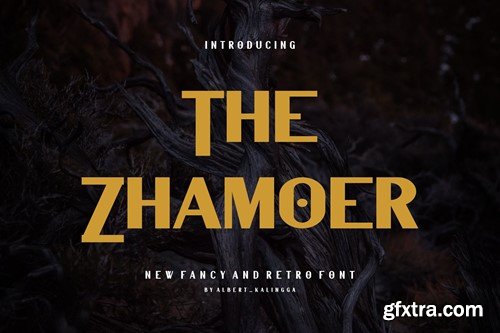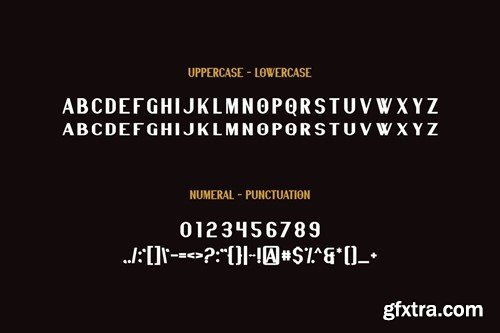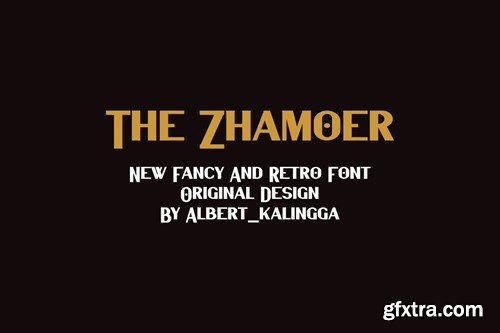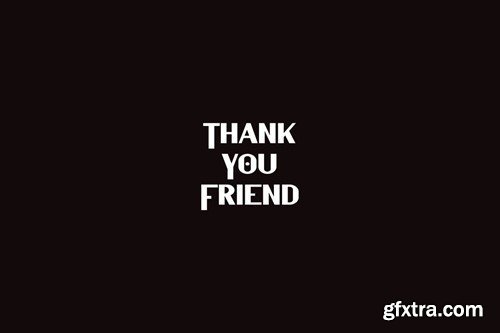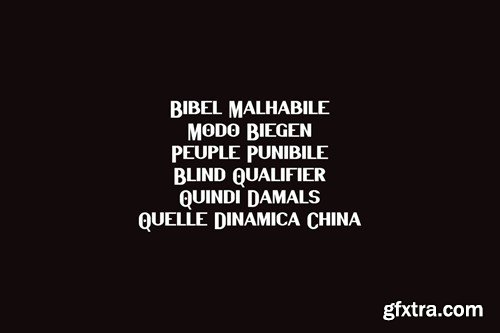
The Zhamoer Font
Introducing our new product The Zhamoer Font - Modern Font is a bold and authentic display font. The font is suitable for any branding project like logo, esport, and many more. outstanding in a wide range of contexts. availlable